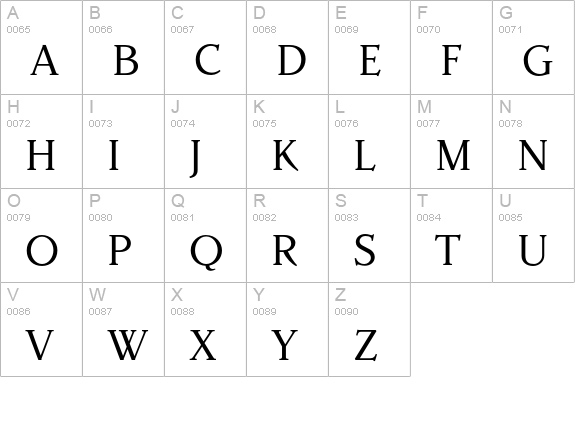
Parkinson-Roman Font Details
Introducing Parkinson-Roman, a captivating font that combines elegance and modernity to create a truly remarkable typeface. With its sleek and sophisticated design, Parkinson-Roman is perfect for a wide range of projects, from branding and logo design to editorial layouts and website headers. This font boasts clean lines and beautifully balanced proportions, making it effortlessly legible even at smaller sizes. Its timeless appeal adds a touch of class and professionalism to any project, instantly elevating its visual impact. The carefully crafted letterforms showcase a harmonious blend of curves and straight edges, resulting in a visually pleasing composition that is both eye-catching and memorable. One of the standout features of Parkinson-Roman is its versatility. Whether you're designing a high-end fashion magazine or a minimalist website, this font can adapt seamlessly to any design concept, effortlessly conveying your message with style and sophistication. Its ability to strike the perfect balance between elegance and readability makes it an ideal choice for both print and digital applications. And the best part? Parkinson-Roman is freely available to download at FontsMarket.com. This means that you can access this stunning font without any cost, making it an excellent option for budget-conscious designers, students, and anyone looking to add a touch of elegance to their projects without breaking the bank. Don't miss out on this fantastic opportunity to enhance your designs with a typeface that exudes timeless beauty and versatility. Download Parkinson-Roman today from FontsMarket.com and unlock the creative potential that this stunning font has to offer. Elevate your designs to new heights with its captivating elegance and make a lasting impression on your audience.